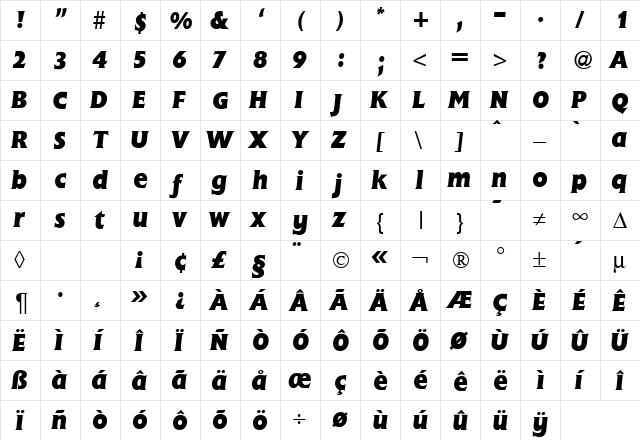
FlemingHeavy RegularItalic
Design Context for FlemingHeavy Typeface
FlemingHeavy takes a measured approach to typography — its balanced proportions and neutral character make it a reliable workhorse for both digital and print work. The slanted form adds forward momentum and visual energy.
Pro Tip: Use FlemingHeavy for emphasis, pull quotes, and subheadings where its slanted energy can add rhythm to the layout.